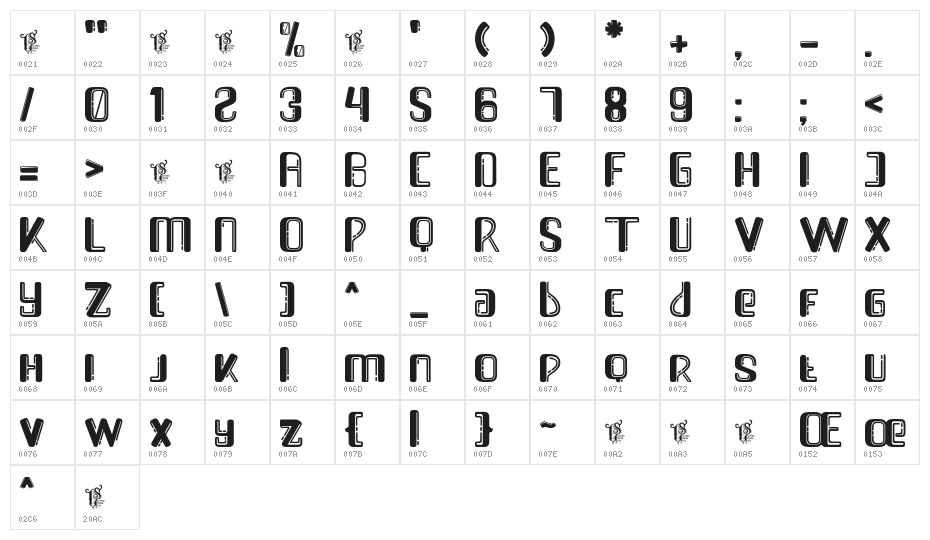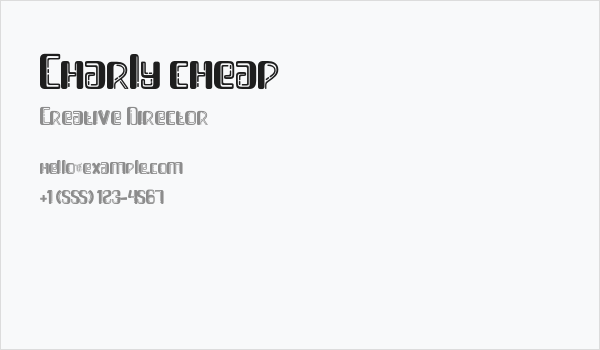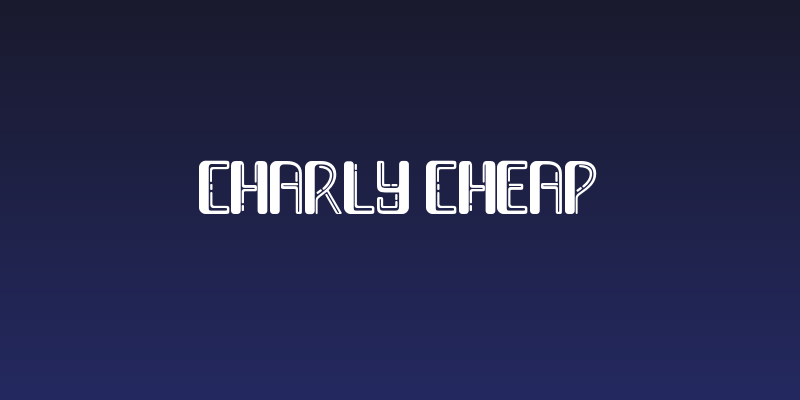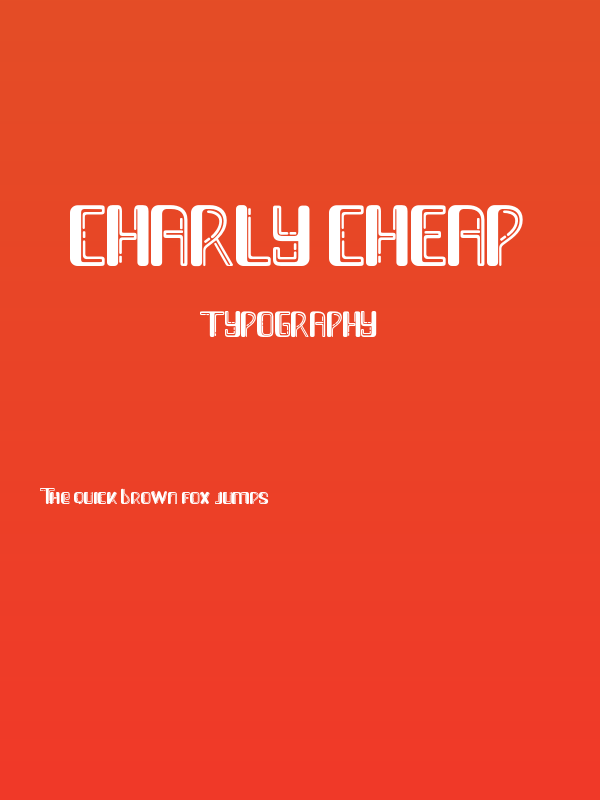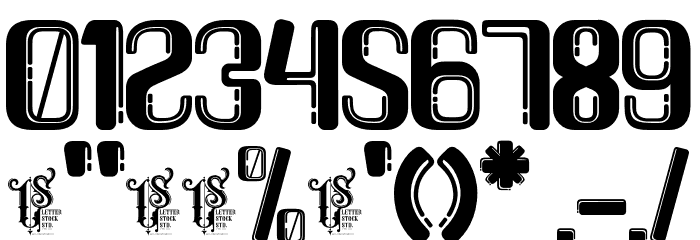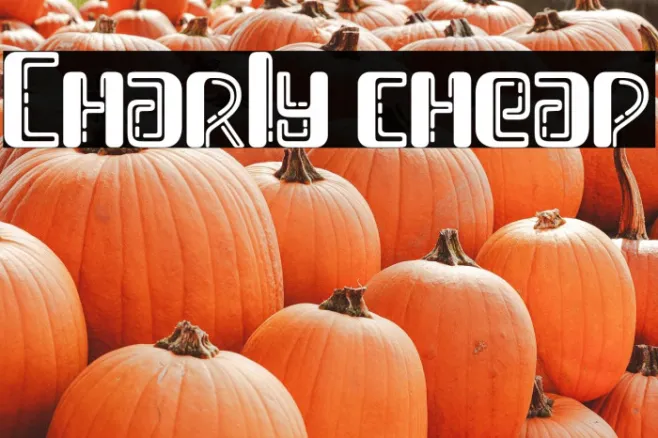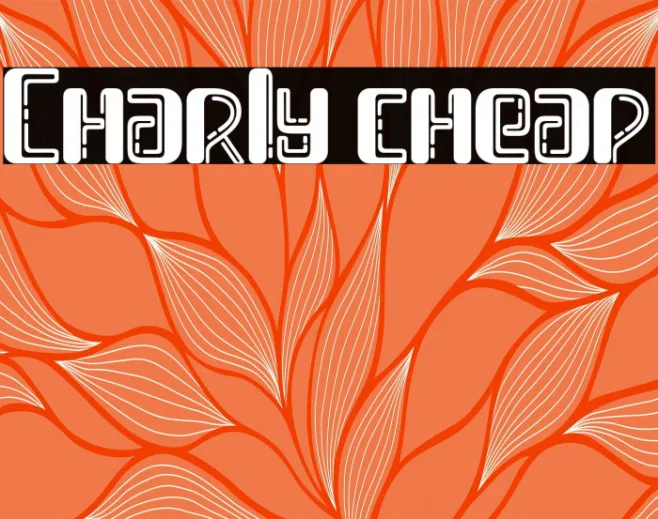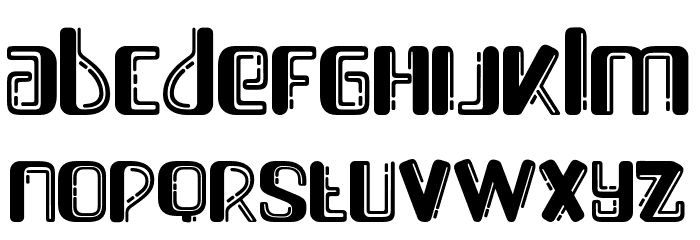
Charly cheap Font
Charly cheap Description
This font features a bold and modern design with a unique geometric structure. The characters are constructed with a combination of thick and thin lines, creating a striking contrast that enhances readability while maintaining a decorative appeal. The uppercase and lowercase letters share a consistent style, with rounded edges and a futuristic aesthetic. The numerals and special characters follow the same design principles, ensuring a cohesive look across all elements. This font's distinct style makes it suitable for eye-catching designs and creative projects.
| Proposed Projects | Ideal for branding, posters, album covers, and any project requiring a modern, eye-catching typeface. |